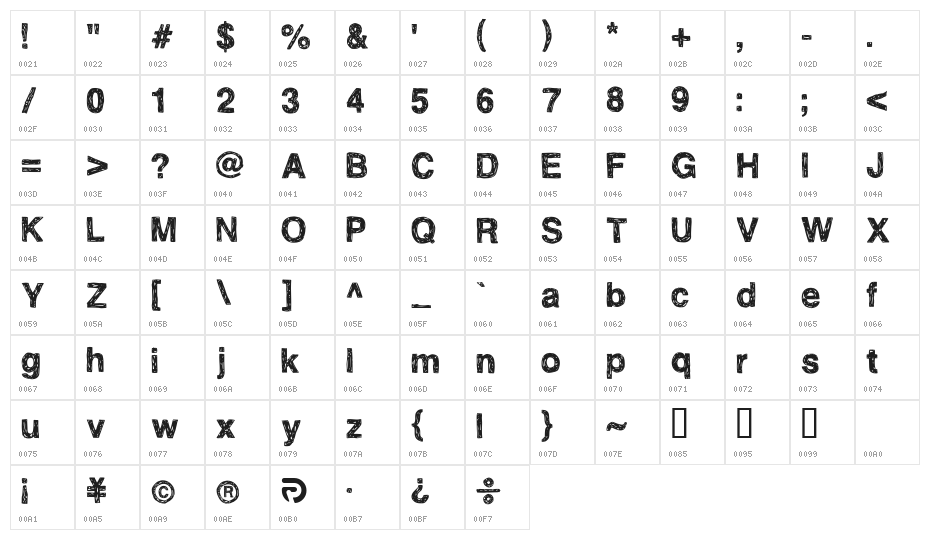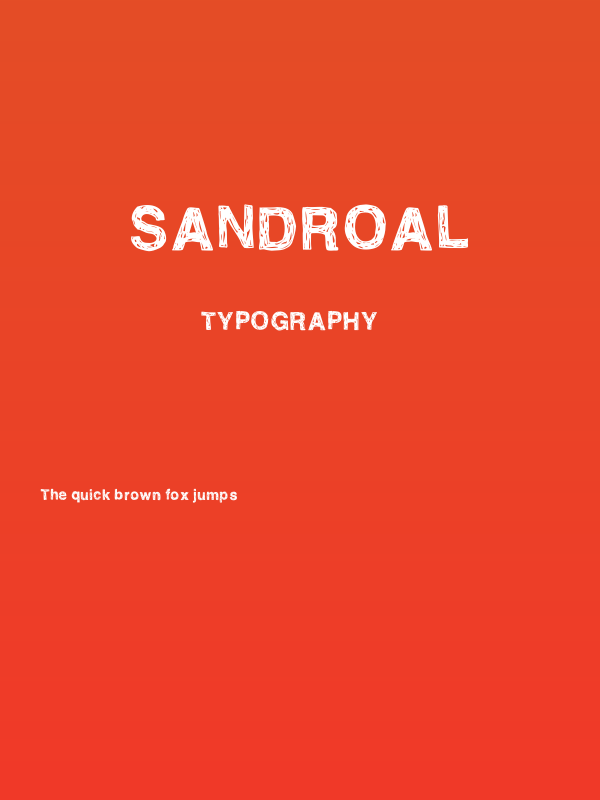
SandroAl Font
SandroAl Description
This font features a playful and artistic style, characterized by its hand-drawn appearance. The letters are bold and have a textured, sketch-like quality that gives them a dynamic and energetic feel. Each character is unique, with irregular edges and a slightly uneven baseline, enhancing the informal and creative vibe. The font maintains good legibility despite its decorative nature, making it suitable for various design projects where a casual and fun aesthetic is desired. The numbers and special characters follow the same artistic theme, ensuring consistency throughout the typeface.
| Overall Style | Playful, Artistic |
| Proposed Projects | Ideal for children's books, creative posters, playful branding, and artistic invitations. |